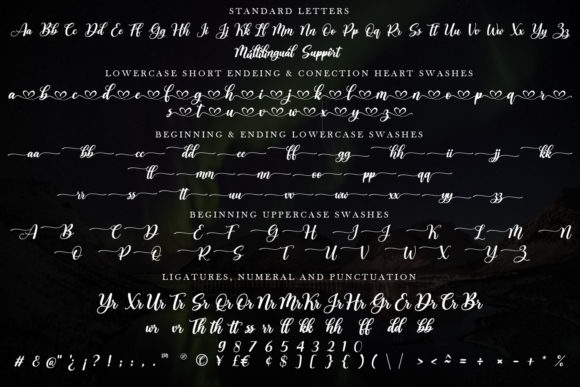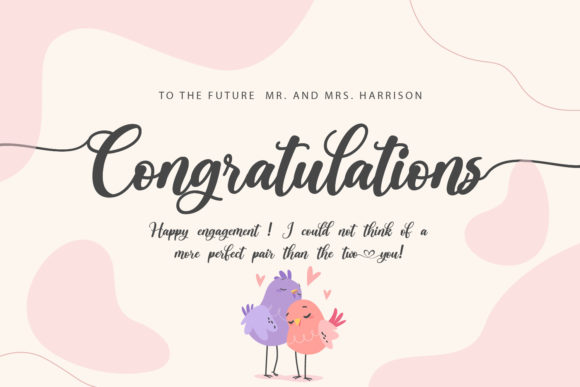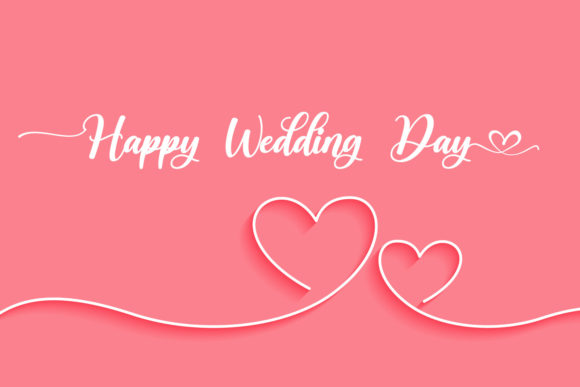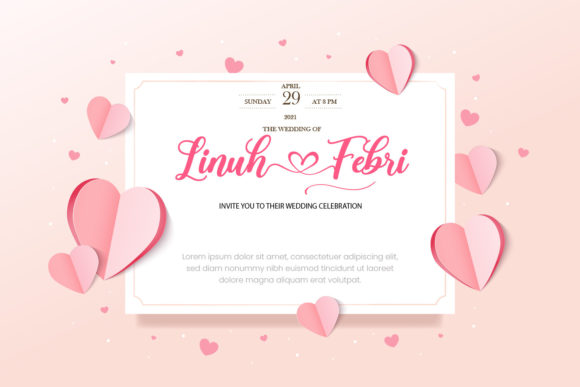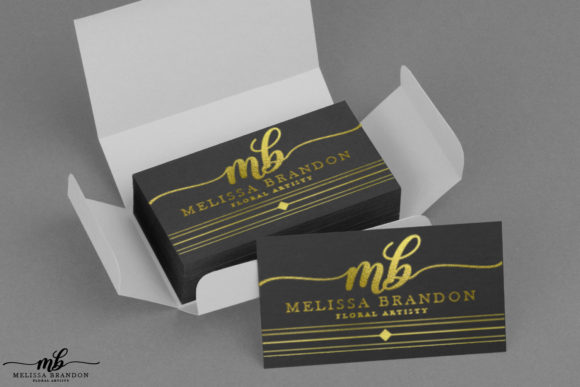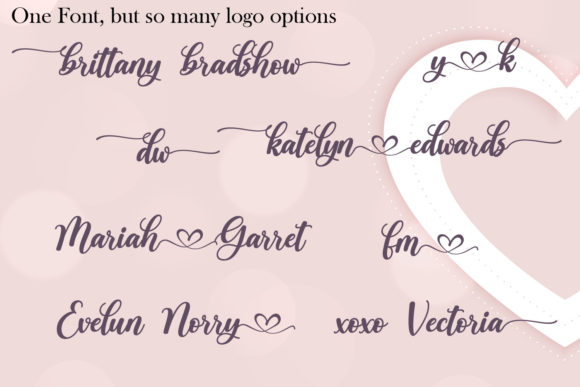
Introducing Another Day Font: Elevate Your Designs with Elegance and Sophistication
In the world of typography, a font can make or break a design project. If you’re looking for a typeface that exudes romance, sweetness, and luxury, look no further than Another Day Font. This beautiful calligraphy font is designed to add a touch of elegance and sophistication to any design project, making it perfect for crafters, designers, and anyone looking to create stunning visual content.
What Makes Another Day Font Special?
Another Day Font is a romantic and sweet calligraphy typeface that boasts characters that dance along the baseline, creating a sense of movement and fluidity. This unique feature sets it apart from other fonts and makes it perfect for designs that require a touch of whimsy and playfulness. Whether you’re working on a wedding invitation, a branding project, or a packaging design, Another Day Font is sure to add a luxury spark that elevates your work.
Another Day Font is PUA (Private Use Area) encoded, which means that you can access all of the amazing glyphs and ligatures with ease. PUA encoding allows designers to access a wide range of characters and symbols that are not available in standard fonts, making it easier to create unique and creative designs. With Another Day Font, you can easily access the various glyphs and ligatures to add a personal touch to your designs.
Another Day Font is a versatile typeface that is perfect for designers and crafters who want to add a touch of elegance and sophistication to their work. Whether you’re creating digital content, such as social media graphics and blog posts, or physical products, like invitations and packaging, this font is sure to impress. Its romantic and sweet style makes it perfect for designs that require a touch of whimsy and playfulness, such as:
- Party decorations and invitations
Tips for Using Another Day Font
To get the most out of Another Day Font, here are a few tips to keep in mind:
- Use it as a headline font to add a touch of elegance and sophistication to your designs.
- Pair it with a sans-serif font to create a beautiful contrast and add visual interest to your designs.
- Experiment with different colors and textures to add depth and dimension to your designs.
- Use the glyphs and ligatures to add a personal touch to your designs and make them more unique.
Another Day Font is a beautiful and elegant calligraphy typeface that is perfect for designers and crafters who want to add a touch of luxury and sophistication to their work. With its unique characters that dance along the baseline and PUA encoding for easy access to glyphs and ligatures, this font is sure to elevate your designs and make them stand out. Whether you’re working on a wedding invitation, a branding project, or a packaging design, Another Day Font is a versatile typeface that is sure to impress.